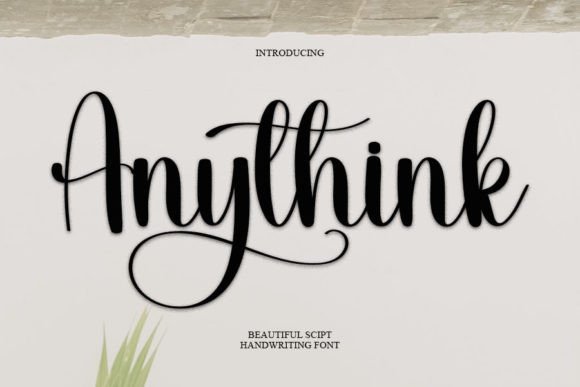
Take your creative journey to new heights with Anythink Font, a spirited and joyous handwritten font that sparks imagination and brings smiles. Its playful and free-flowing style adds a personal touch to any project, whether you're designing invitations, crafting unique cards, or adding a touch of whimsy to your presentations.
Escape the ordinary and dive into a world of creative freedom with Anythink Font. This spirited font dances across your screen, leaving a trail of joy and inspiration in its wake. Its organic lines and charming curves capture the essence of handwritten notes, adding a personal touch that resonates with your audience.
With Anythink Font, the possibilities are endless. Its versatility shines through whether you're designing eye-catching logos, creating captivating social media posts, or adding a touch of playfulness to your website. Its friendly demeanor invites readers to engage with your content, making it a perfect choice for blogs, e-books, and online courses.
Let Anythink Font be your artistic companion, guiding you through every creative endeavor with its effortless charm. Its ability to transform ordinary text into captivating visuals will leave you feeling inspired and excited to create. Embrace the power of creativity and let Anythink Font ignite your imagination!